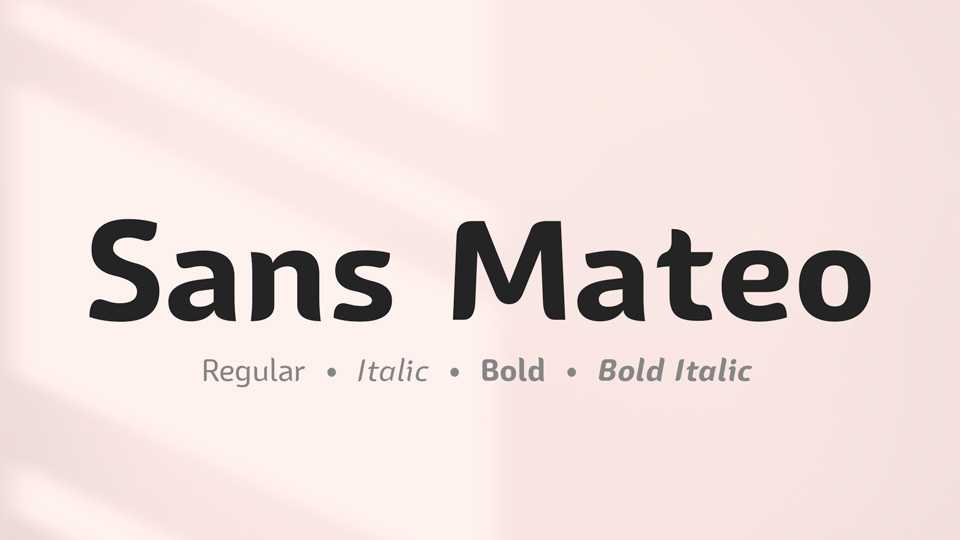
Download Sans Mateo typeface, a sans serif font family with four styles. Sans Mateo has few curves to the ends of the stems and limbs.
Designer: Paul James Miller